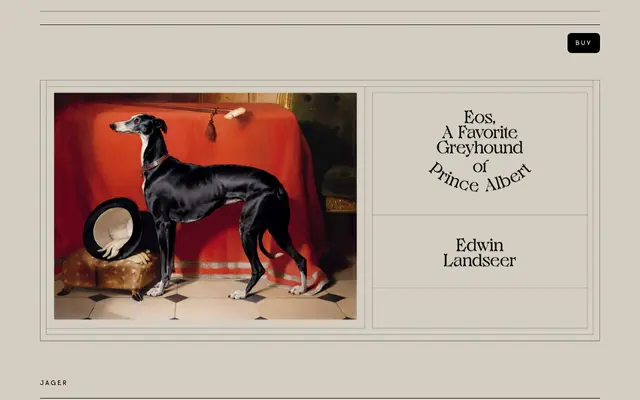
Jager
VJ Type · Jérémy Schneider · 2020
A craft-inspired display typeface by Jérémy Schneider, with counter forms drawn from engraving, wood-cutting and chisel work.
Designed by Jérémy Schneider and released in 2020, Jager began as drawings developed for an exhibition at the Musées des Arts Décoratifs in Paris. The hollowed counter forms recall engraving and sculpture, while angled terminals suggest cuts in wood, with rounded rather than sharp contours throughout. Each weight comes in two versions: Jager Master, the bolder and more angular original, and Jager Classic, in which the open counter tops are filled in for a smoother result.
Jager is explicitly a display typeface with counter forms inspired by engraving, wood-cutting and chisel work, placing it firmly in the display category with a craft-influenced subcategory distinct from geometric or humanist traditions.